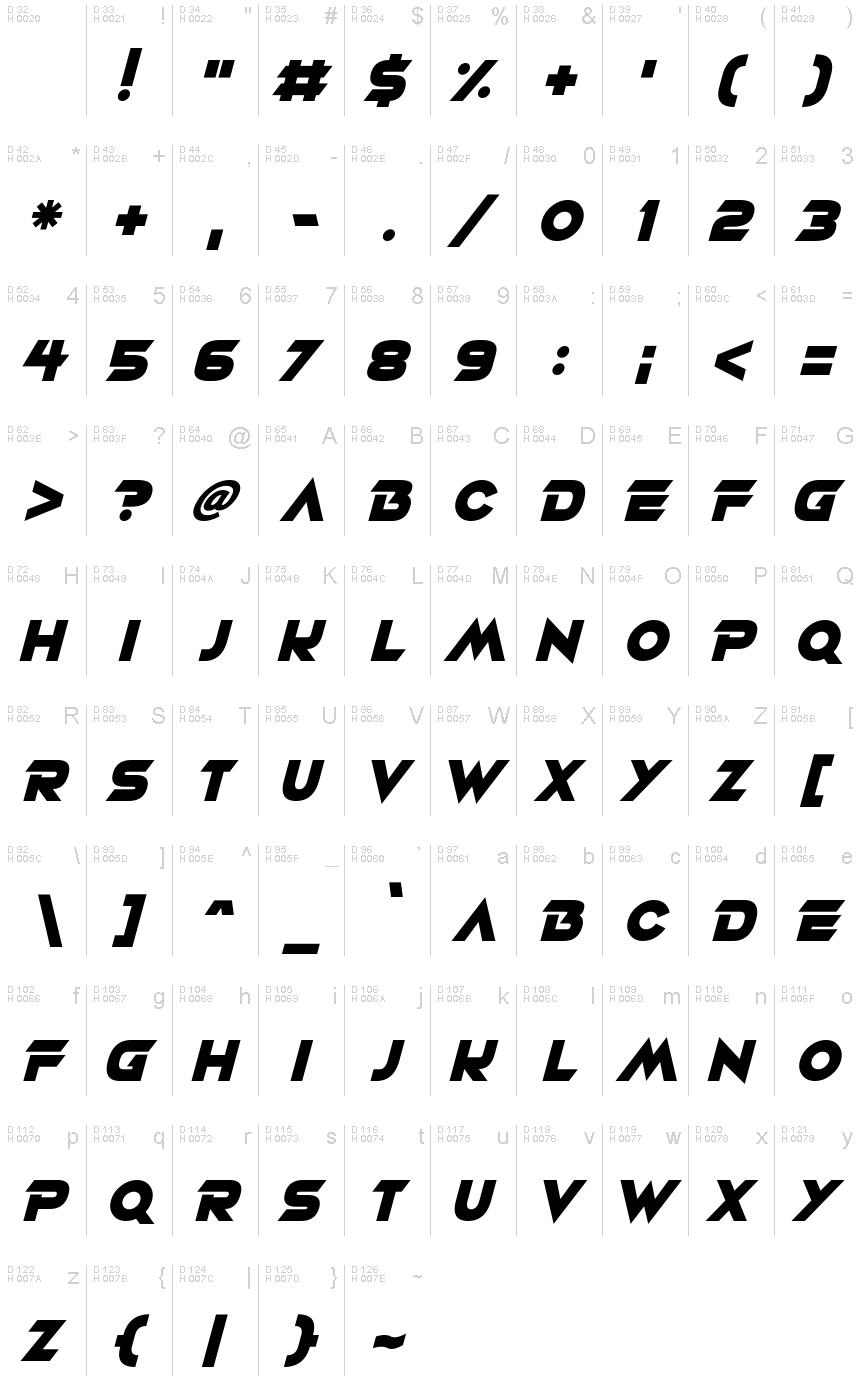
Robot Rebels Italic
Robot Rebels Italic, crafted by Hawtpixel, commands attention with its bold, futuristic display style. Its dynamic slant and robust structure evoke a sense of motion and modernity. The font's striking presence makes it ideal for projects seeking a cutting-edge, avant-garde vibe.
Perfect for technology-themed branding, sci-fi movie titles, or high-energy posters, Robot Rebels Italic enhances visual impact with ease. Its design effortlessly bridges the gap between futuristic aesthetics and assertive confidence, making it a versatile choice for various creative endeavors that aim to leave a lasting impression.